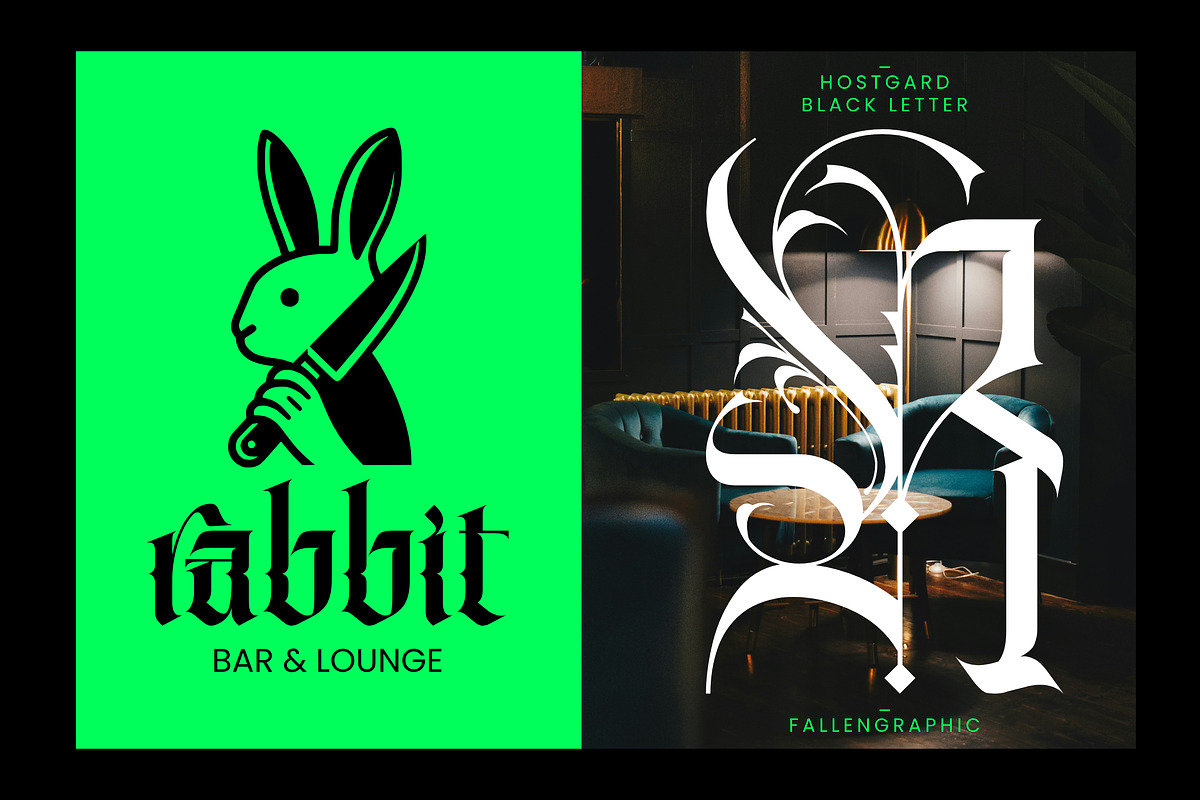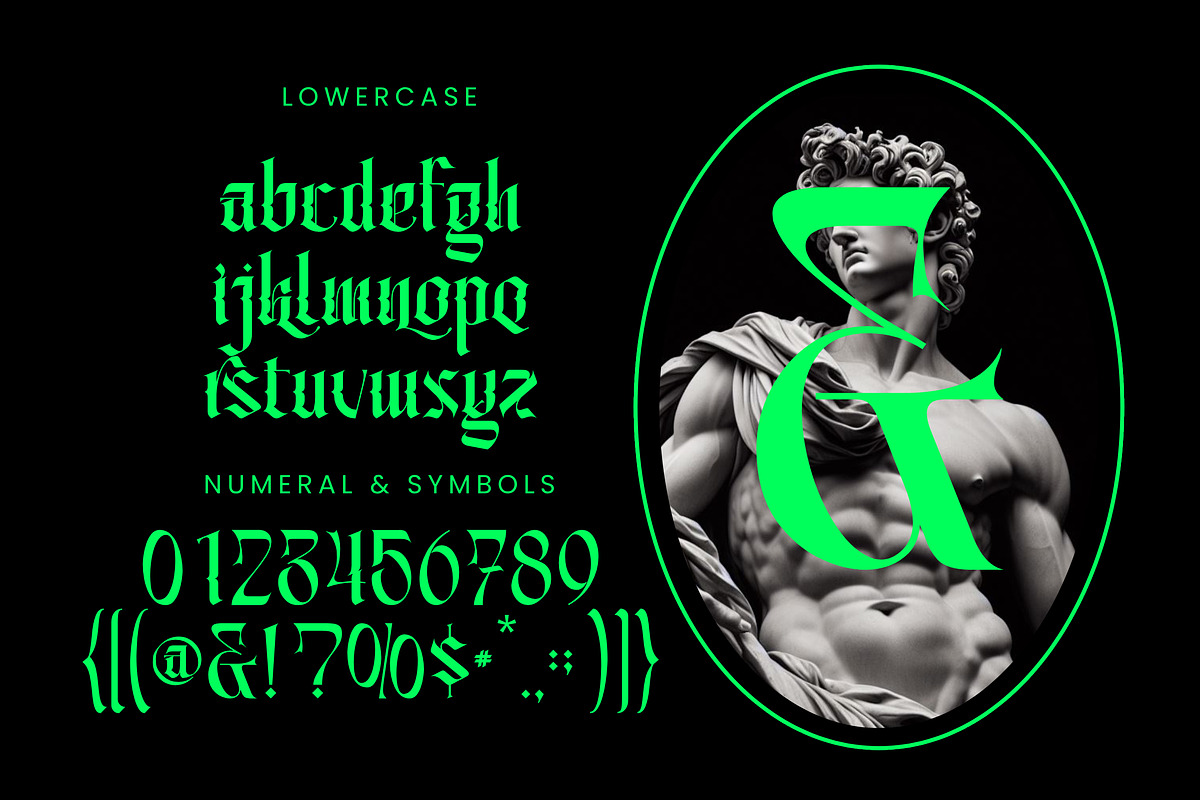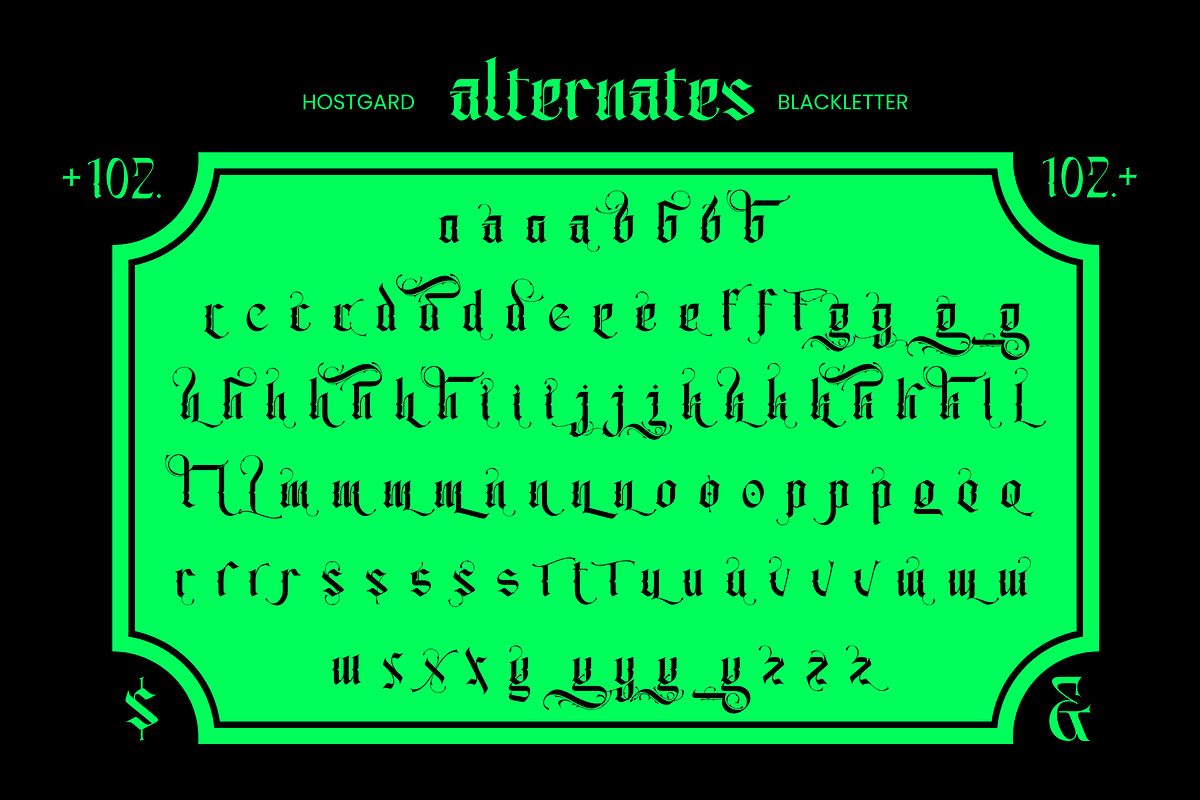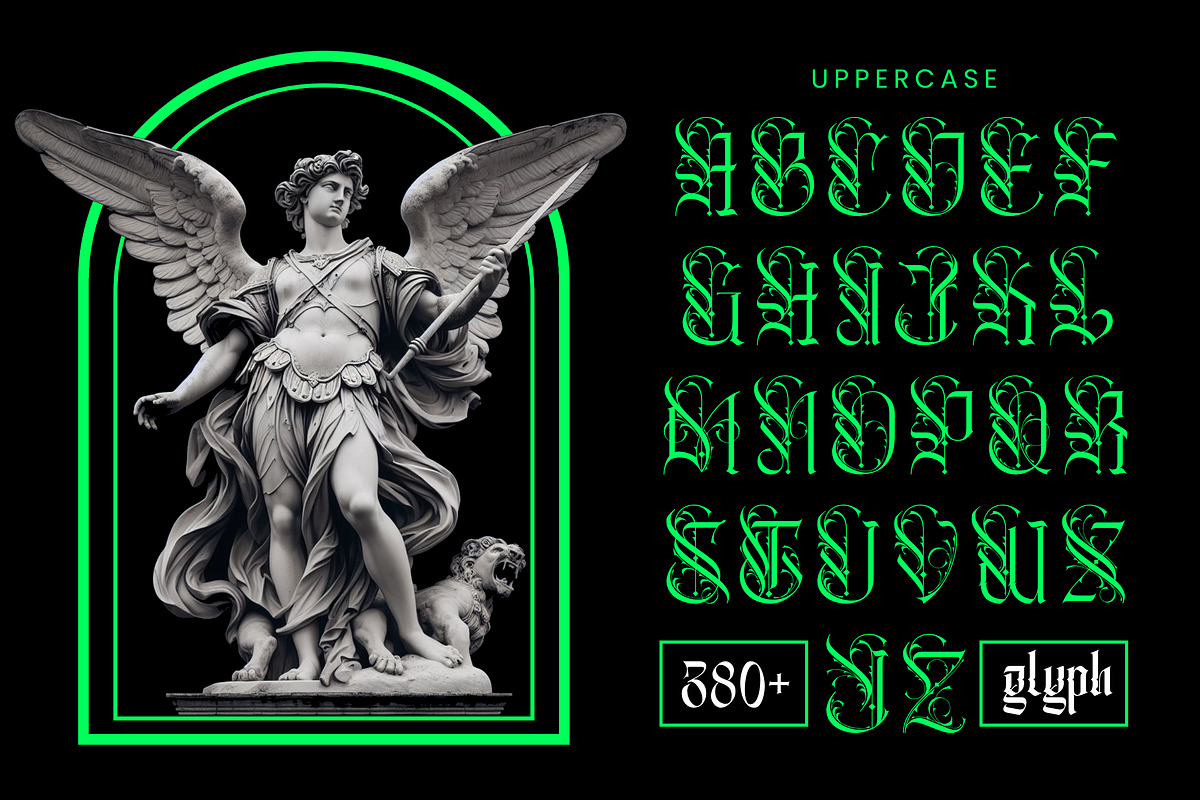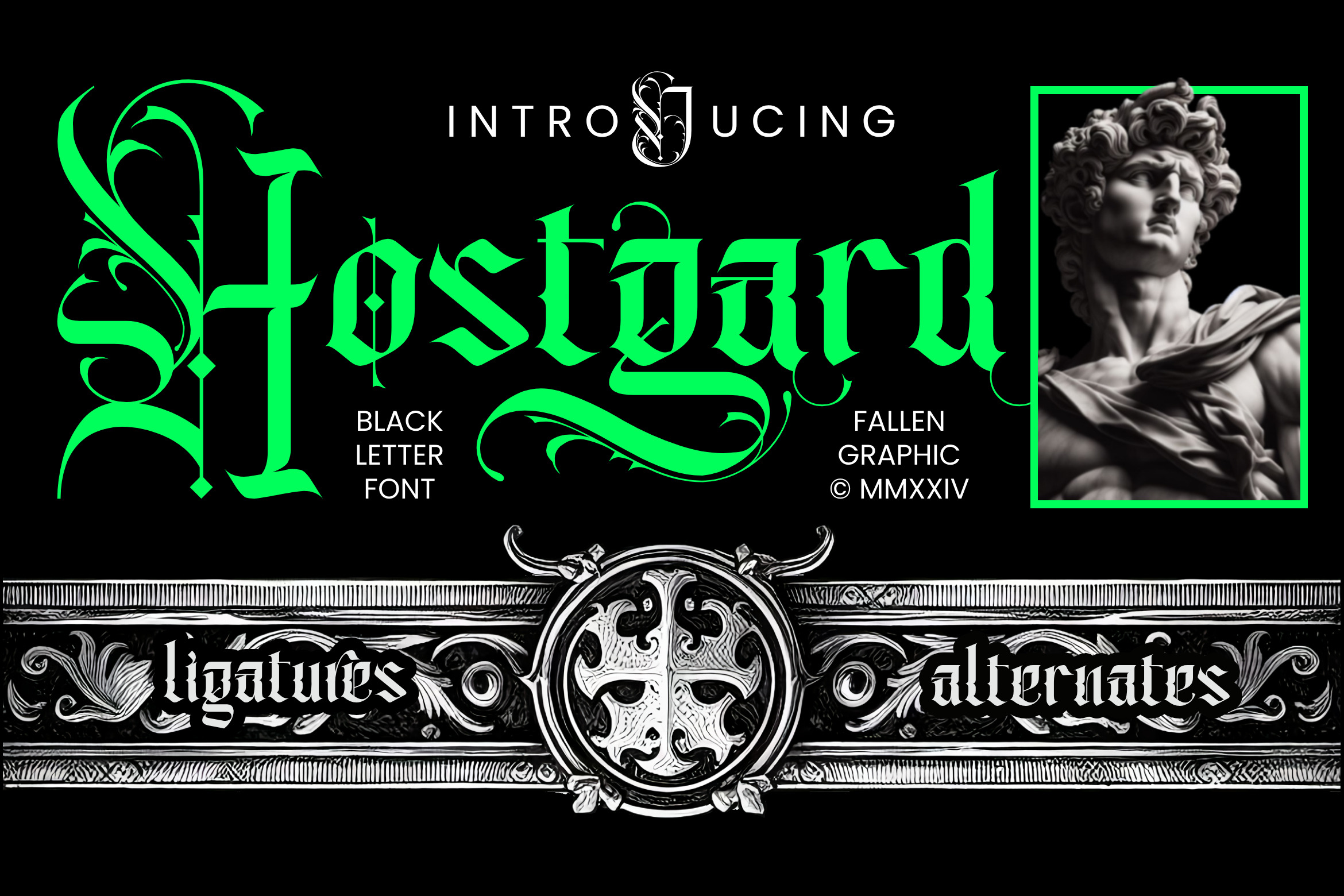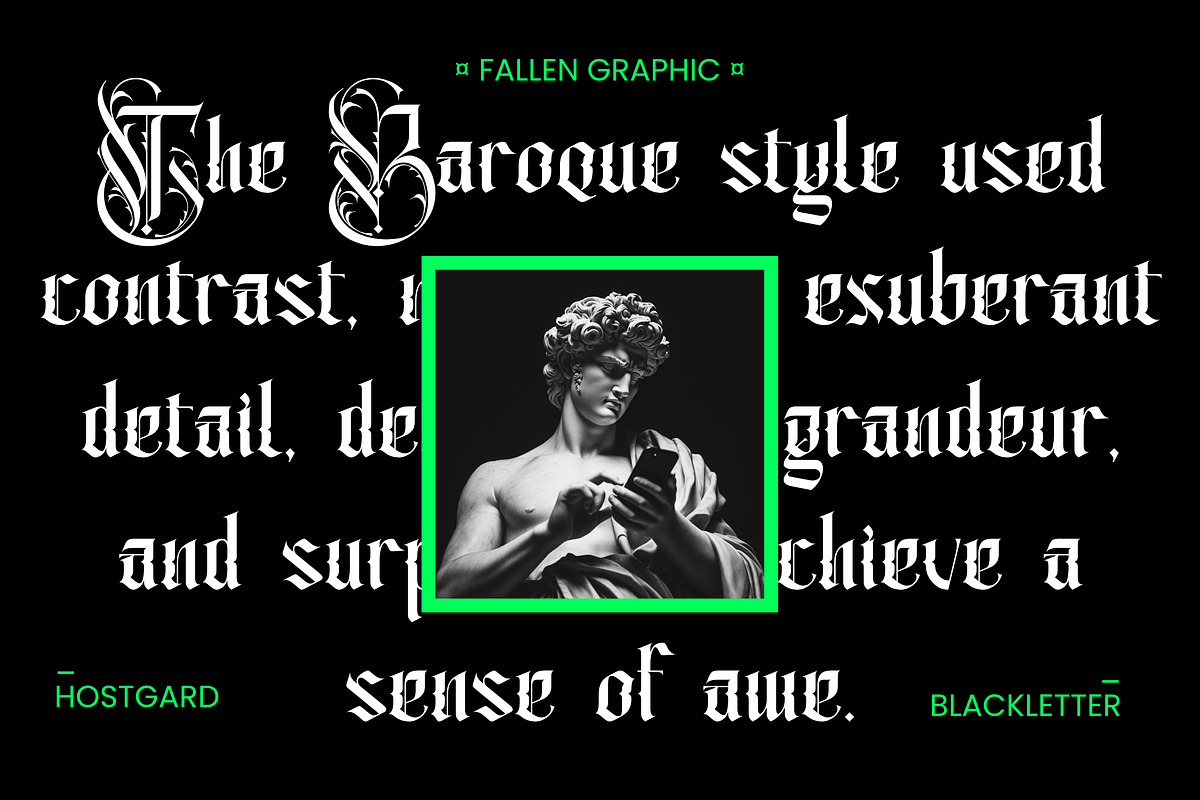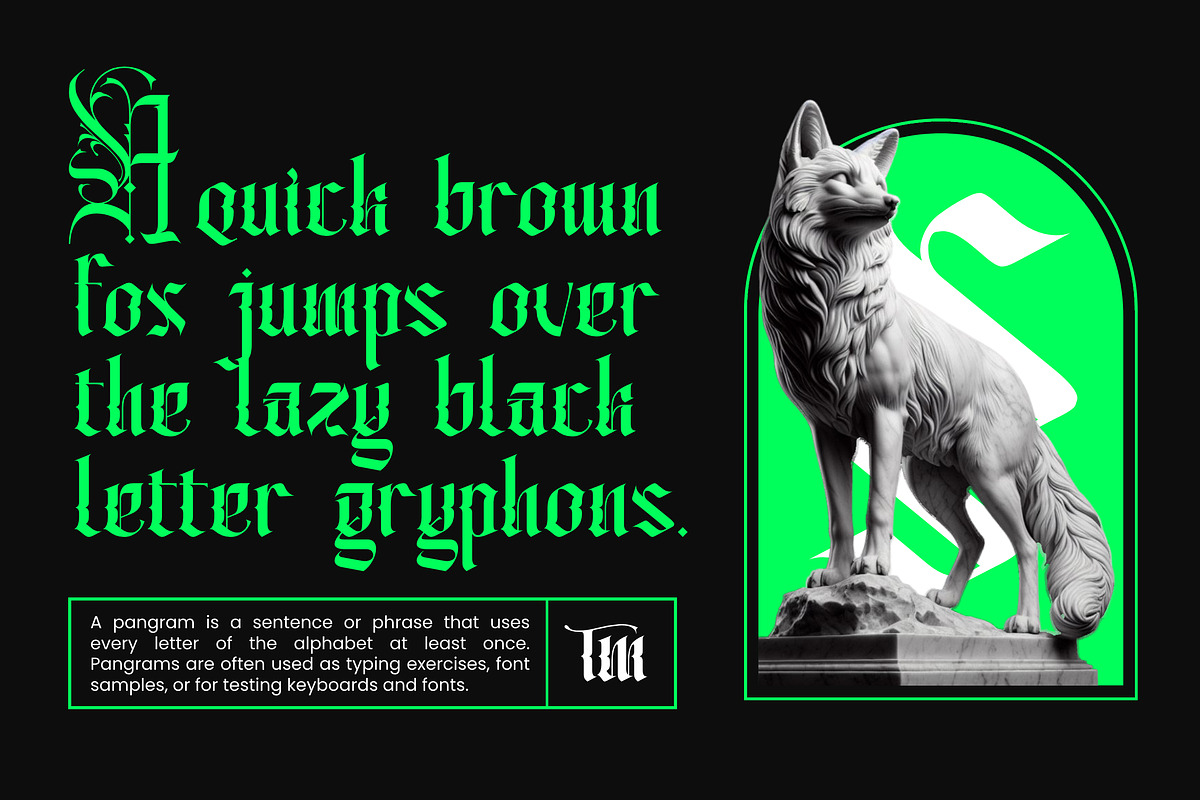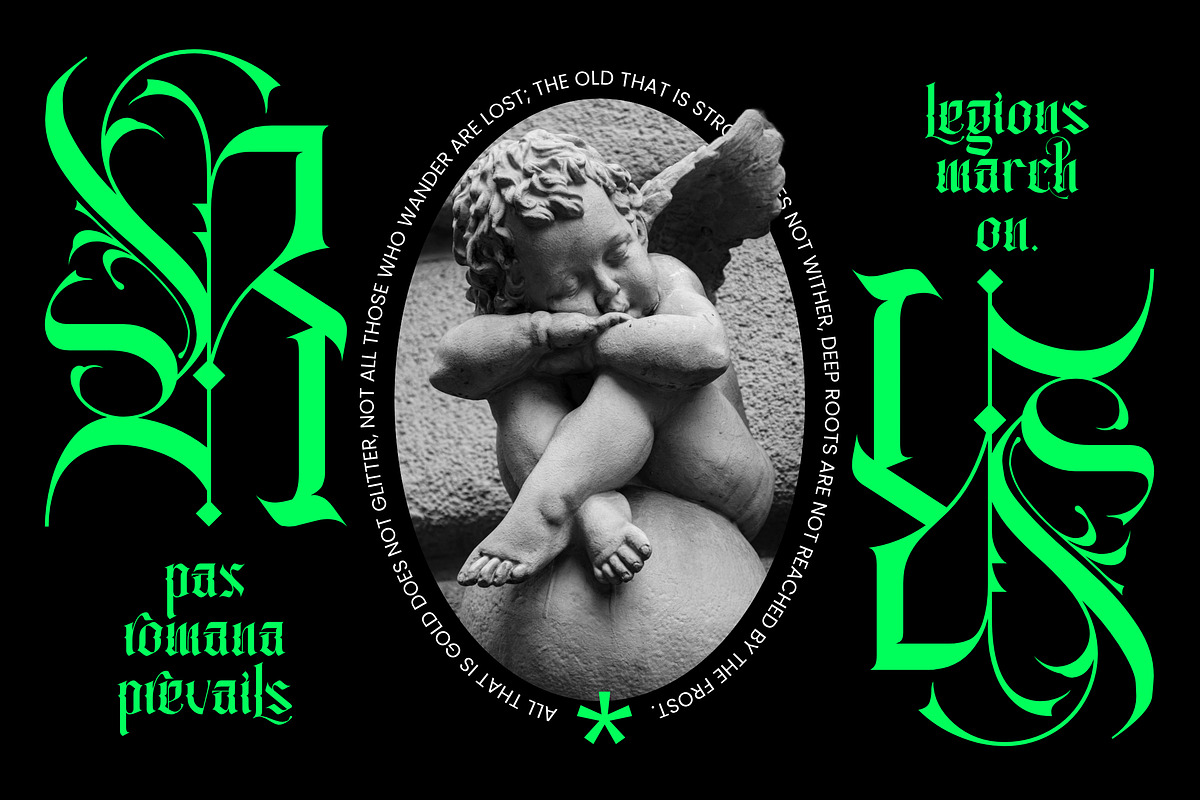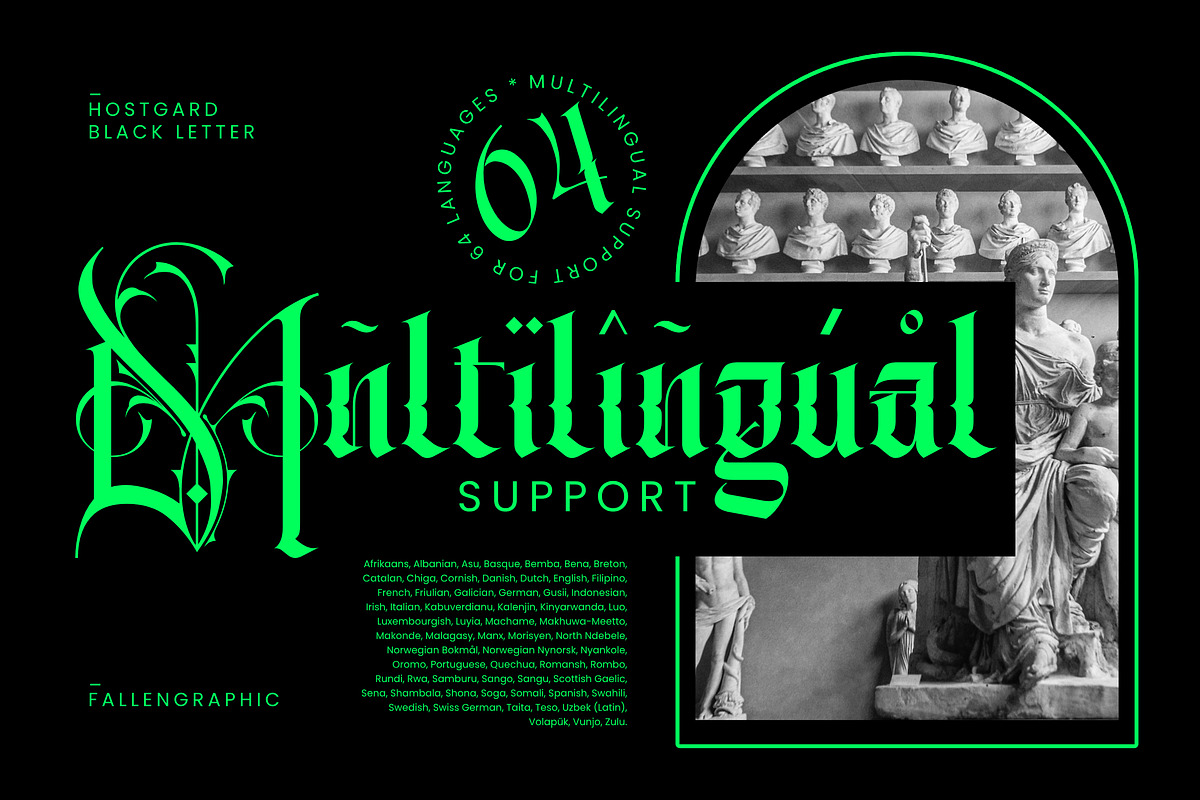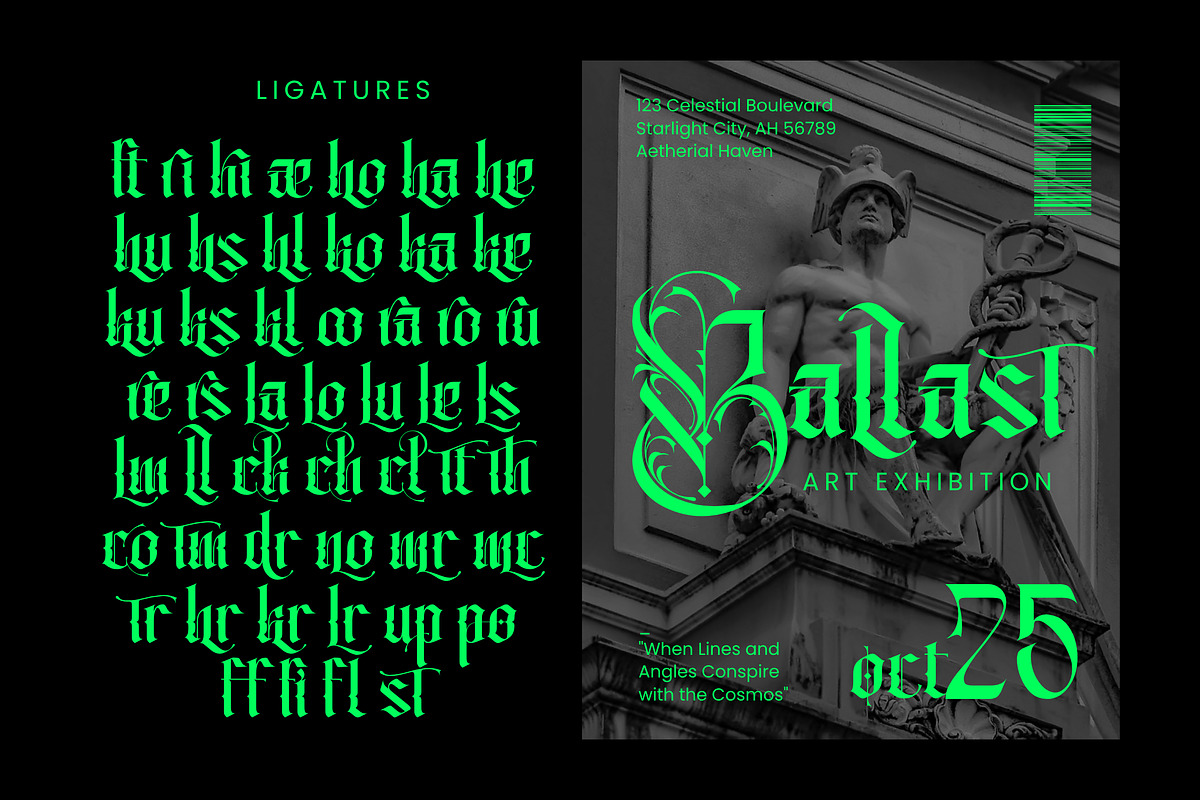
Hostgard - Blackletter Font
Hostgard, a blackletter masterpiece that seamlessly blends traditional elegance with modern boldness. With its powerful gothic aesthetics and captivating artistic details, Hostgard creates an ambiance that reintroduces classical touches into the contemporary era.
Each character in Hostgard boasts a distinctive charm, with every letter harmoniously merging to craft a typographic masterpiece. The bold lines and intricate accents present in every detail provide a visually stunning appeal, making Hostgard perfect for projects seeking a memorable and strong identity.
Hostgard offers remarkable flexibility across various design contexts. Ideal for logos aiming for an exclusive and powerful impression, this font is also suitable for merchandise design, packaging, and event promotional materials, exuding an elegant and captivating aura.
With Hostgard, you bring the essence of blackletter into your creations, crafting works that are not only striking but also carry an enduring classic touch. Turn every word into a piece of art with Hostgard – where traditional elegance meets modern boldness.